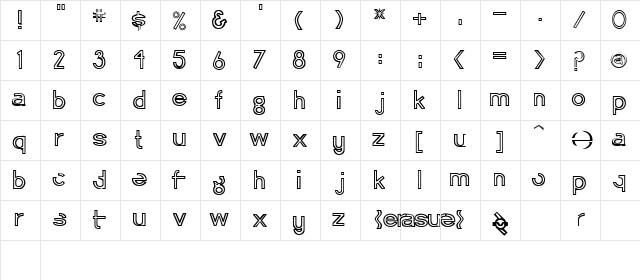
Erasure Regular
Design Context for Erasure Typeface
Erasure is a composed and adaptable typeface that performs quietly and consistently across a wide range of design contexts.